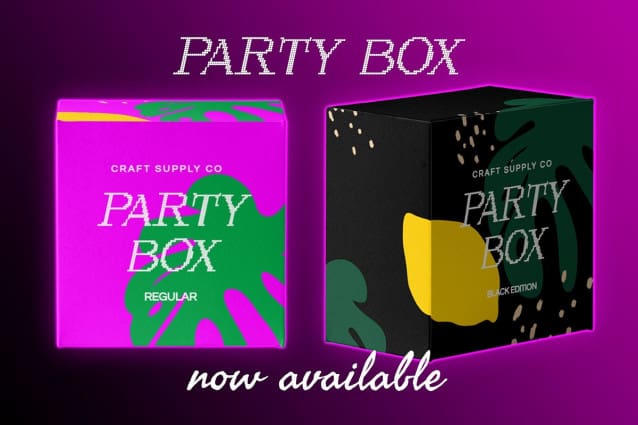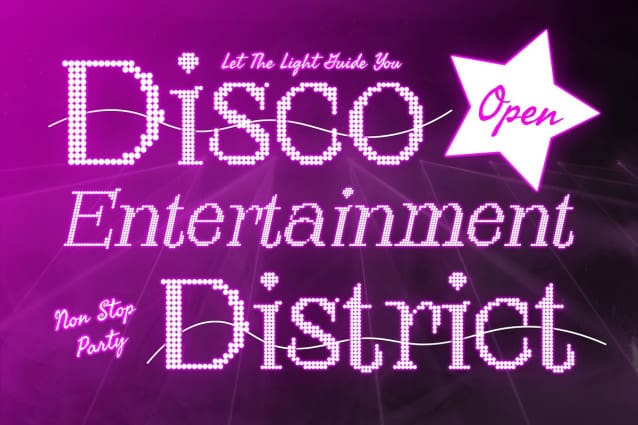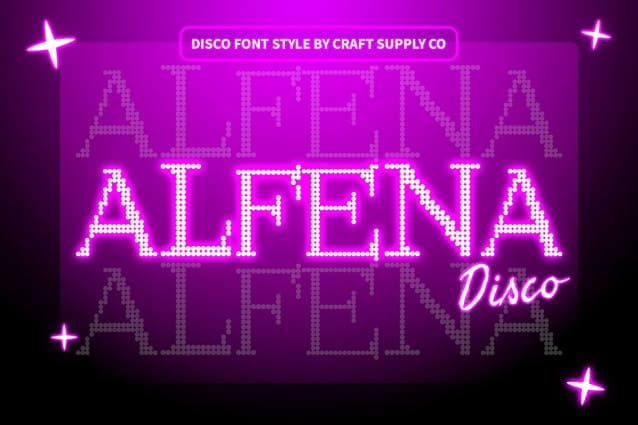
Alfena Disco Font
Alfena Disco Font : Groovy Glyphs for Vibrant Displays. Circular Serif Delight Alfena Disco features rounded serif glyphs, reminiscent of disco balls, creating a visually captivating display font.
Inspired by Disco Vibes Drawing inspiration from the vibrant energy of disco, This font infuses your display designs with a retro charm and a touch of nostalgia.
Glyphs in Harmony The circular serifs of This font come together harmoniously to form a cohesive and stylish collection of glyphs, perfect for creating eye-catching headlines and titles.
Dance Floor Ready Whether you’re designing posters, album covers, or event invitations, This font is your go-to font for projects that demand a funky and playful aesthetic.
Where Typography Meets the Dance Floor This font merges the world of typography with the vibrant spirit of disco, offering a unique and lively option for display purposes. With its circular serif glyphs and disco-inspired vibe, this font brings a groovy touch to any design project, ensuring that your creations are ready to hit the dance floor of visual delight